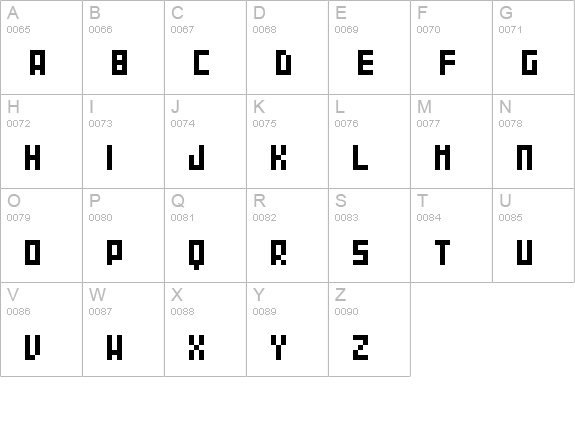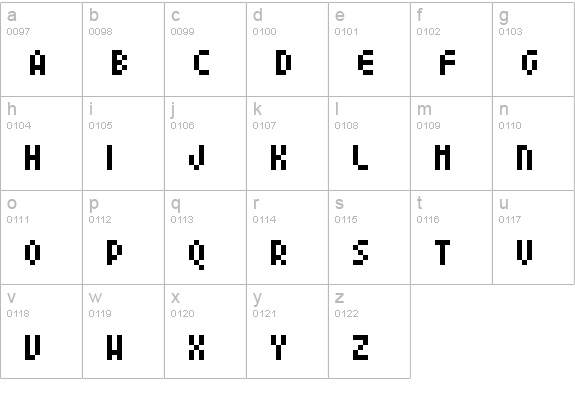
04b 24 font is a modern and versatile typeface that exudes a futuristic and digital aesthetic. With its geometric shapes and clean lines, this font is perfect for creating a contemporary look in your designs. Whether you're working on a website, branding materials, or print projects, 04b 24 font will add a touch of sophistication and style. Best of all, this font is available for free download at FontsMarket.com. This means you can easily access and use it in your projects without any cost. Don't miss out on the opportunity to enhance your designs with the sleek and professional look of 04b 24 font. Download it today and take your creations to the next level!